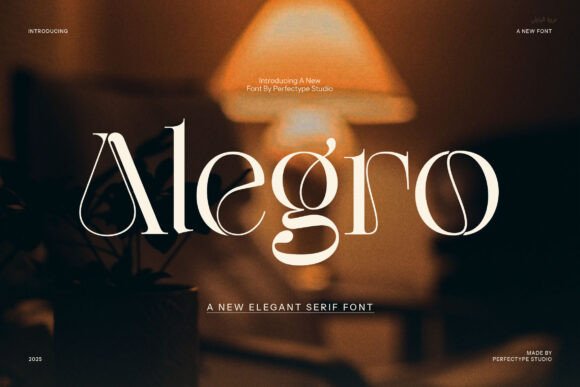
Alegro Font: Elevate Your Designs with a Touch of Elegance and Sophistication
In the world of typography, a font can make all the difference in the success of a design project. Alegro Unique Serif Font is a modern and sophisticated typeface that combines classic elegance with contemporary flair, making it the perfect choice for designers looking to create a bold statement. With its meticulously crafted ligatures and alternate characters, Alegro brings a distinctive and high-end look to any creative project.
The Unique Features of Alegro Font
Alegro’s unique features offer an exquisite touch to any design project, from logos to brand identities. Each letterform is carefully crafted to stand out with its individual charm, making it perfect for a wide array of design applications. The font’s refined serif structure enhances readability while maintaining a stylish and professional presence, making it suitable for logos, branding, websites, and advertisements.
One of the standout features of Alegro is its ligatures and alternate characters. These meticulously crafted elements give the font a distinctive and high-end look, setting it apart from other typefaces. The ligatures and alternate characters also provide designers with the flexibility to customize the look of their text, adding a touch of elegance and sophistication to their designs.
The Versatility of Alegro Font
What truly sets Alegro apart is its versatility. This font is equally suited for print and digital projects, adding a refined quality to both large headlines and smaller body text. Its timeless design makes it an ideal choice for brands looking to project a sense of elegance and exclusivity, while its creative alternates give designers the flexibility to customize the look to match their vision.
Whether you’re working on a boutique logo, a food product label, or an elegant magazine layout, Alegro effortlessly adapts to the demands of modern design with its clean lines and sophisticated detailing. The font’s versatility also makes it suitable for a wide range of industries, from luxury brands to food and beverage companies, and from fashion to lifestyle.
The Benefits of Using Alegro Font
There are several benefits to using Alegro Unique Serif Font in your design projects. Firstly, the font’s elegant and sophisticated design makes it perfect for brands looking to project a sense of luxury and exclusivity. Secondly, its versatility makes it suitable for a wide range of design applications, from print to digital projects.
Another benefit of using Alegro is its ability to enhance readability. The font’s refined serif structure makes it easy to read, even in smaller sizes, making it perfect for body text. Additionally, the font’s creative alternates give designers the flexibility to customize the look of their text, adding a touch of elegance and sophistication to their designs.
How to Use Alegro Font in Your Design Projects
To get the most out of Alegro, experiment with different font sizes, styles, and alternates. You can also combine Alegro with other fonts to create a unique and visually appealing design. For example, you can use Alegro as a headline font and pair it with a sans-serif font for body text.
In conclusion, Alegro Unique Serif Font is a modern and sophisticated typeface that combines classic elegance with contemporary flair. Its unique features, versatility, and refined serif structure make it perfect for a wide range of design applications, from logos to brand identities, and from print to digital projects.
Whether you’re a designer looking to create a bold statement or a brand looking to project a sense of elegance and exclusivity, Alegro is the perfect choice. With its creative alternates, ligatures, and refined serif structure, Alegro is sure to elevate your designs with style, personality, and finesse.
Key Features of Alegro Font
- Modern and sophisticated typeface
- Combines classic elegance with contemporary flair
- Meticulously crafted ligatures and alternate characters
- Refined serif structure enhances readability
- Versatile and suitable for print and digital projects
- Creative alternates give designers flexibility to customize the look
- Perfect for logos, branding, websites, and advertisements
Q: What is Alegro Unique Serif Font?
A: Alegro Unique Serif Font is a modern and sophisticated typeface that combines classic elegance with contemporary flair.
Q: What are the unique features of Alegro Font?
A: Alegro’s unique features include meticulously crafted ligatures and alternate characters, refined serif structure, and creative alternates.
Q: What design applications is Alegro Font suitable for?
A: Alegro is suitable for a wide range of design applications, including logos, branding, websites, advertisements, and more.
Q: Can I use Alegro Font for print and digital projects?
A: Yes, Alegro is equally suited for print and digital projects, adding a refined quality to both large headlines and smaller body text.